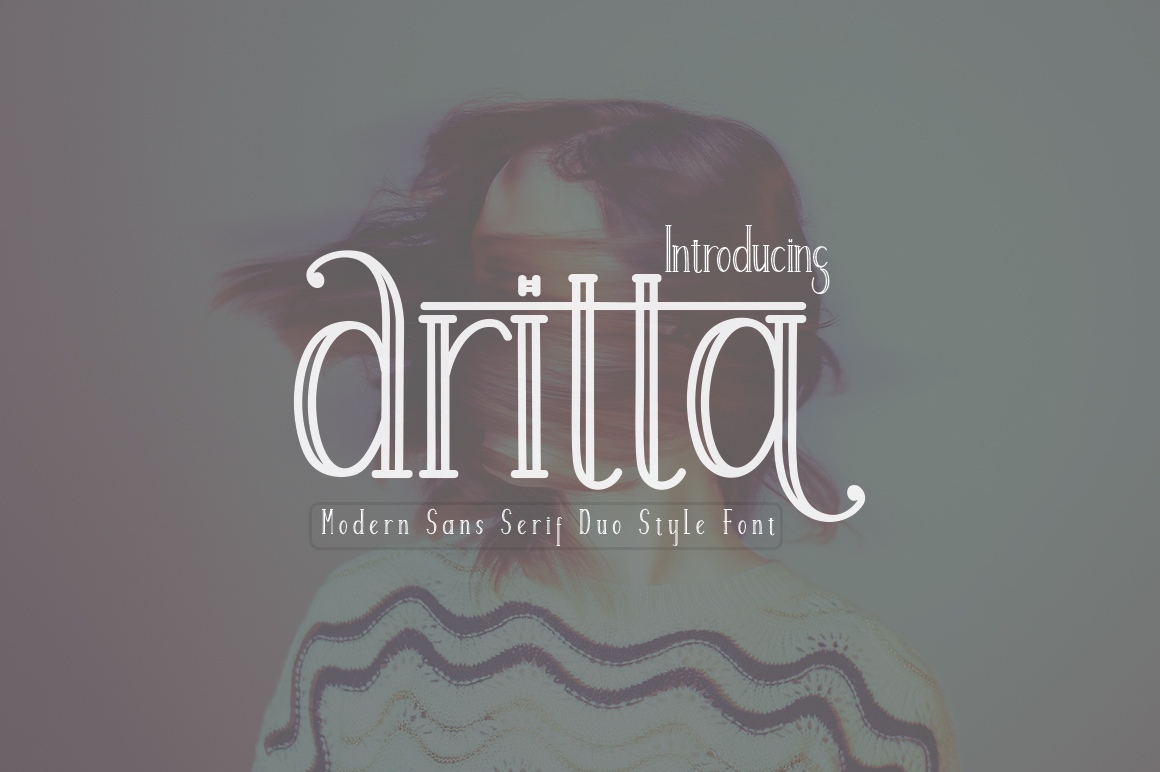
Aritta Font
Aritta Font is perfect for elegant fashion brands, sophisticated beauty campaigns, luxury lifestyle magazines, upscale wedding invitations, premium spa marketing, refined jewelry packaging, high-end cosmetics, boutique hotel branding, graceful dance studios, and distinguished feminine businesses.
What makes Aritta Font exciting is its graceful sophistication that embodies feminine elegance and refined beauty through delicately crafted letterforms. This distinguished typeface combines gentle curves with contemporary clarity, creating a personality that communicates grace, sophistication, and authentic feminine charm. The font's elegant character and refined appeal make it perfect for brands seeking to celebrate feminine strength and sophisticated beauty in today's empowered marketplace.
The Aritta Font family includes Regular, Bold, Light, Medium, Elegant, Graceful, Condensed, and Refined variants. Each weight maintains the font's sophisticated character while providing comprehensive typographic flexibility for feminine brand identity systems and elegant design applications across diverse luxury platforms.
Whether you're developing feminine brand identities, creating luxury marketing materials, designing elegant wedding stationery, or building sophisticated beauty campaigns, Aritta Font delivers unmatched elegant appeal and feminine sophistication. Its graceful presence makes it perfect for beauty brands, fashion designers, luxury spas, and refined businesses seeking authentic feminine representation.
The font's refined proportions and elegant details create an inspiring reading experience that celebrates the strength and beauty of modern femininity. Each letterform has been carefully crafted to convey grace, confidence, and sophisticated beauty that resonates with audiences seeking authentic feminine excellence and refined lifestyle experiences.
This versatile typeface excels in luxury environments, offering designers the elegance needed for comprehensive feminine brand communication strategies. The extensive character set includes elegant alternates, graceful ligatures, and sophisticated symbols for luxury feminine market positioning and refined brand storytelling.
Embrace the power of graceful design that celebrates feminine sophistication and authentic refined beauty experiences.